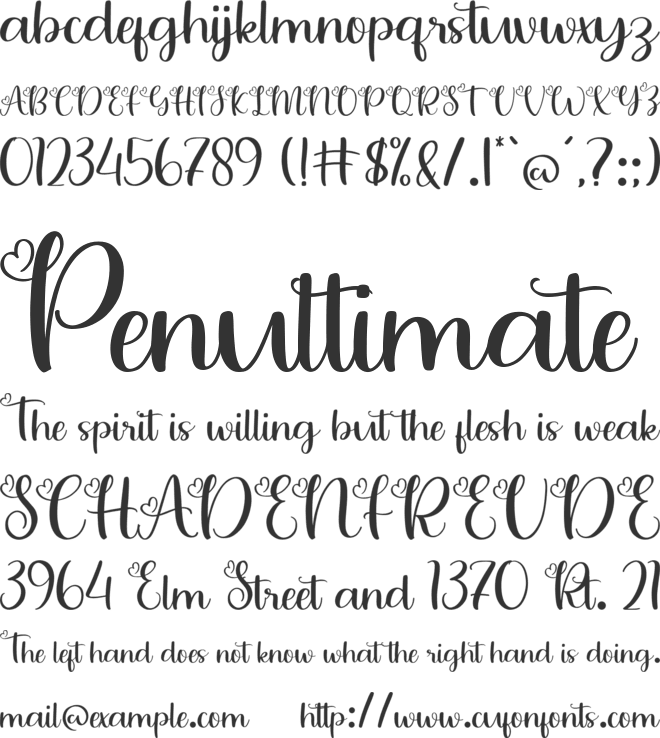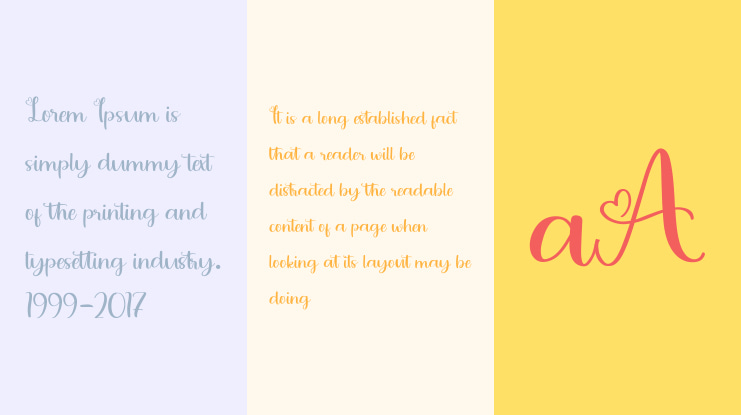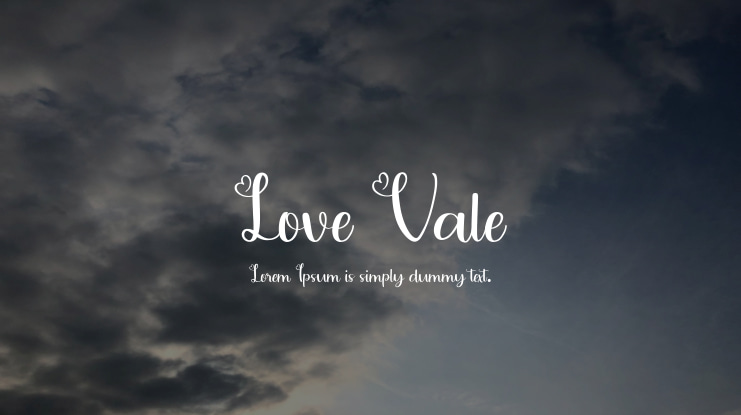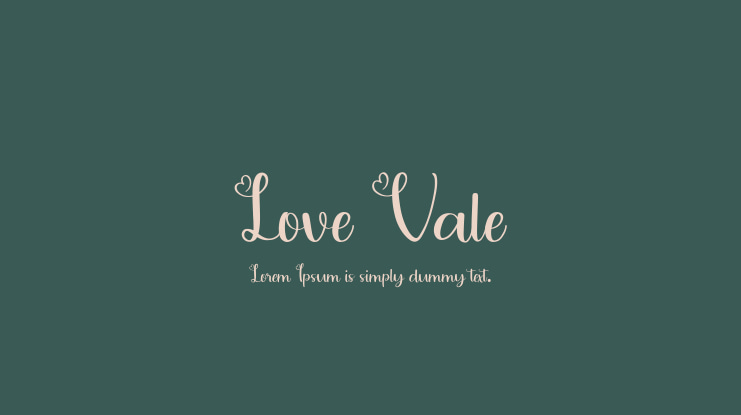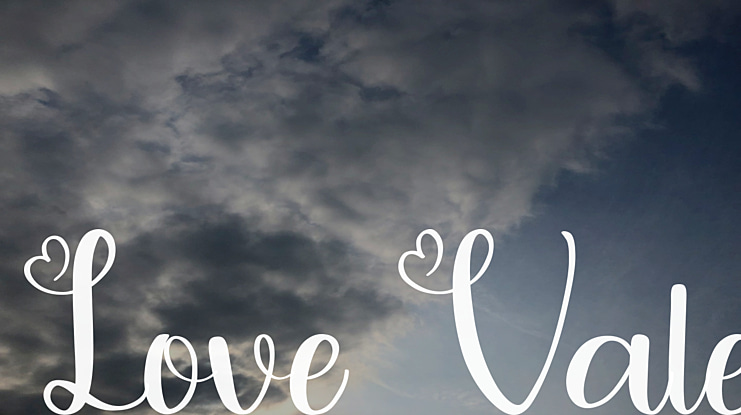
Love Vale Font
About Love Vale font :
Love Vale is a sweet and lovely handwritten font. This font can be used for any project like a wedding invitation, a book cover, a greeting card or anything that needs a dainty and romantic feel.